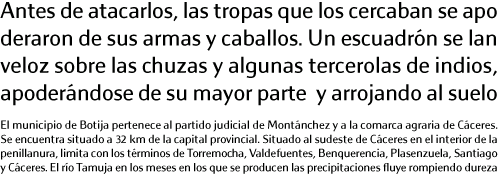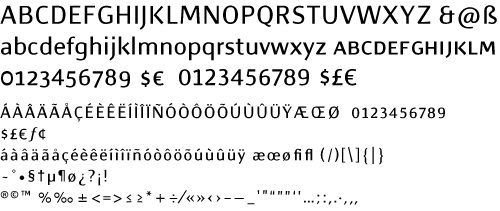
Botija una tipo bien cancherita
Botija
DESIGNER
Juan Montoreano.
ith a gentle, modulating effect and very neat from a formal point of view, Botija is ideal for medium sized texts.
Created initially as a reinterpretation of
Bodoni, it maintains a sharp vertical axis and a medium level of contrast, suitable
to function in smaller bodies and featuring subtle details which stand out in medium sized bodies.